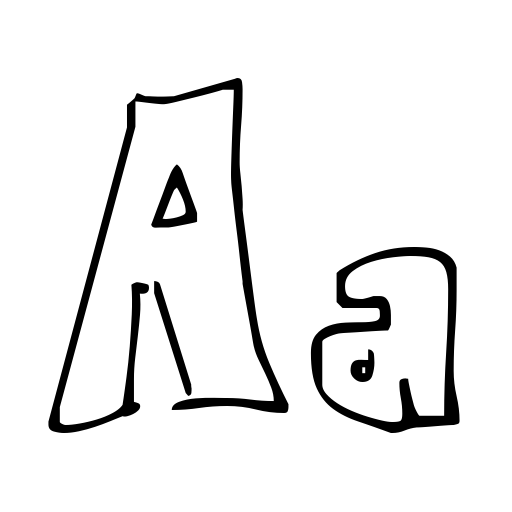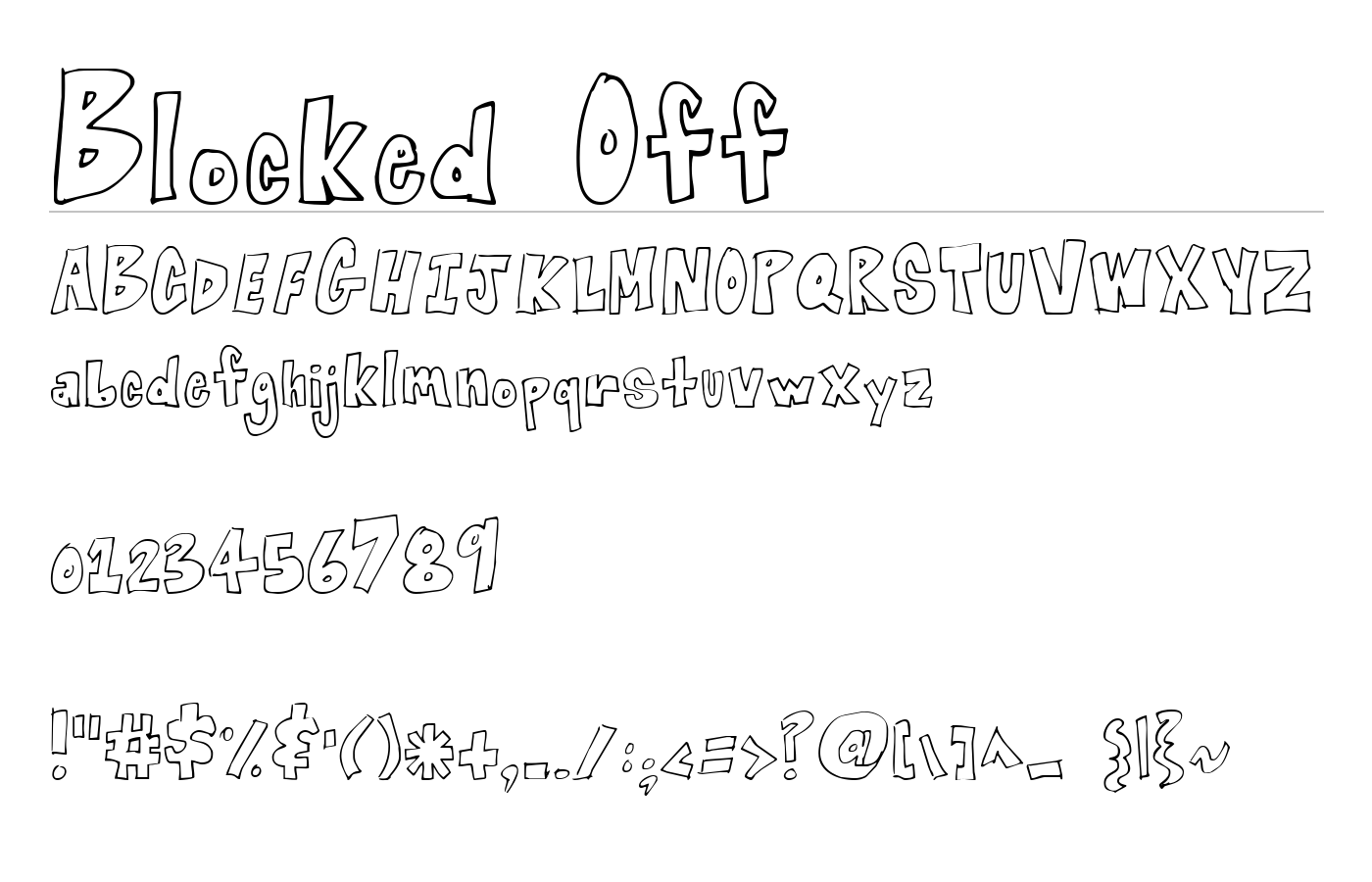
Blocked Off is a playful, hand-drawn sans serif font with quirky, uneven letterforms that give a casual and energetic vibe. Its irregular shapes, varying stroke widths, and informal style make it ideal for fun, creative projects like children's books, posters, and unique branding that seeks a friendly and approachable look. This font works best in headlines and display uses where its character can truly stand out.
About Blocked Off Font
| Designer | Kimberly Geswein |